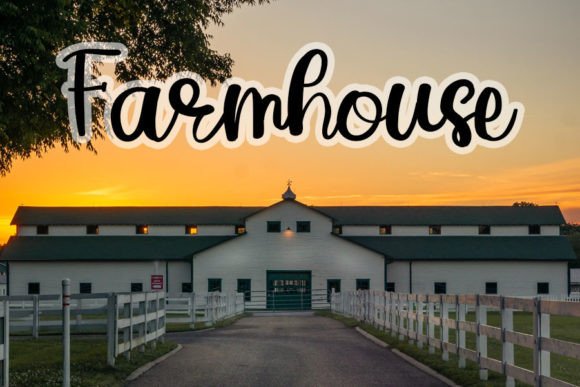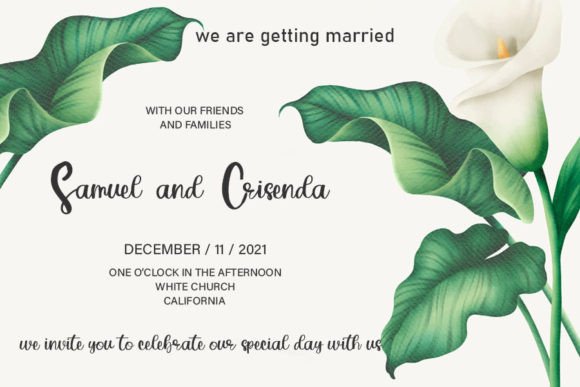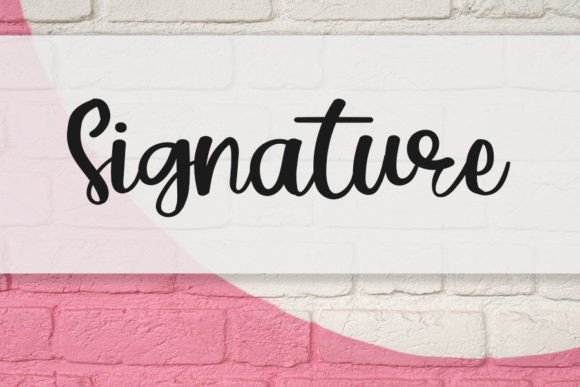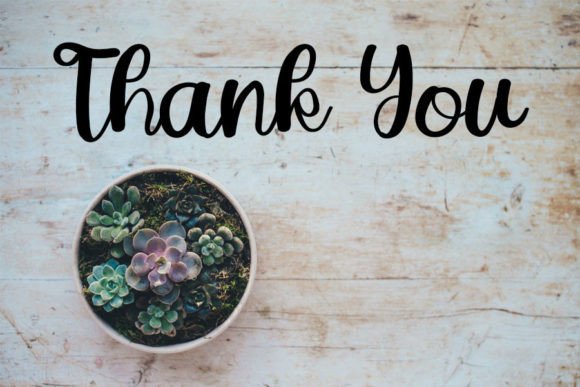
The Sweetest Addition to Your Design Palette
Have you ever been in the midst of brainstorming a creative project, flipping through font options, and suddenly, it hits you – the perfect look for your design? That’s exactly what happened when designers discovered the Donuts Font. Its stylish handwritten charm has been the game-changer they needed to elevate their projects from ordinary to extraordinary.
The Donuts Font is a versatile, handwritten font that effortlessly adds a touch of romance to any creation. Whether you’re crafting a heartfelt greeting card or designing a captivating headline, this font is sure to leave a lasting impression. Its value lies in its adaptability, making it a must-have for designers looking to add a personal touch to their work.
Donuts Font Key Features
- Unique Characteristics: The Donuts Font features a playful, cursive script with rounded edges and a whimsical feel, making it ideal for creative and decorative designs.
- Language Support: Supports a wide range of languages, including Latin, Cyrillic, and Greek, making it a versatile choice for global designs.
- Kerning and Ligatures: Includes advanced kerning and ligature pairs, ensuring smooth and polished text rendering.
Donuts Font Review
Overall, I think Donuts Font is a fun and playful addition to any design project. ✨ The font’s unique style and quirky charm can add a lot of character to text-based elements. The designer has done a great job of creating a cohesive and well-designed font family that works well for both display and body text.
Some of the things that I particularly like about Donuts Font include:
- ✨ Its versatility in use – from headings to captions, the font looks great in a variety of contexts
- ✨ The wide range of styles and weights available, which makes it easy to customize the font to suit different design needs
- ✨ The clean and modern aesthetic, which makes it a great choice for contemporary designs
- ⚠️ The font may not be suitable for all types of projects, particularly those that require a more formal or professional tone
- ⚠️ Some of the letterforms may be a bit too ornate or distracting for certain uses, such as body text
Overall, I think Donuts Font is a great choice for designers who want to add some personality and whimsy to their projects. With its unique style and wide range of customization options, it’s a great addition to any design toolkit.
Tips for Getting the Most Out of the Donuts Font
For the best results, use the Donuts Font in conjunction with bold or italic text to create a playful and eye-catching design.
The Donuts Font is perfect for:
Casual and playful designs, such as social media graphics and promotional materials.
Food and